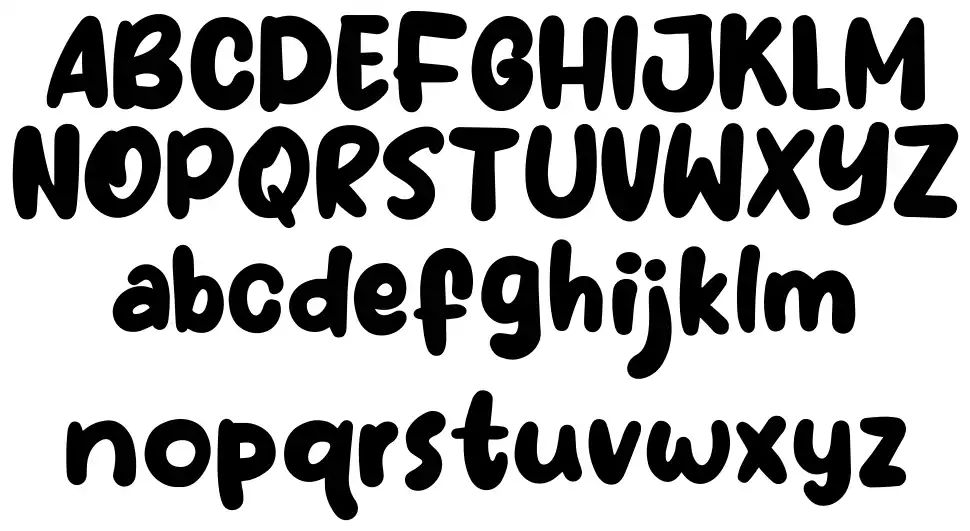
Brandy Coffee Font . brandy coffee font is a quirky handwritten font. Brandy coffee is perfect for product packaging, branding project, megazine, social media,. This font looks great as a standalone or in conjunction with others. brandy coffee handwritten font is a quirky handwritten font. free download of brandy coffee font. 35,628 downloads (3 yesterday) free for personal use. brandy coffee a quirky handwritten font. brandy coffee font download is available free from fontget. free fonts for commercial use · new & fresh fonts · most popular fonts · alphabetic fonts · largest font families ·. Brandy coffee is a free font for personal use created by allouse. Brandy coffee is perfect for any titles, logo, product packaging, branding project, megazine, social media,.
free fonts for commercial use · new & fresh fonts · most popular fonts · alphabetic fonts · largest font families ·. brandy coffee font download is available free from fontget. Brandy coffee is perfect for product packaging, branding project, megazine, social media,. Brandy coffee is a free font for personal use created by allouse. Brandy coffee is perfect for any titles, logo, product packaging, branding project, megazine, social media,. free download of brandy coffee font. brandy coffee a quirky handwritten font. brandy coffee font is a quirky handwritten font. brandy coffee handwritten font is a quirky handwritten font. This font looks great as a standalone or in conjunction with others.
Brandy Coffee Font brandy coffee handwritten font is a quirky handwritten font. 35,628 downloads (3 yesterday) free for personal use. Brandy coffee is a free font for personal use created by allouse. free download of brandy coffee font. brandy coffee handwritten font is a quirky handwritten font. This font looks great as a standalone or in conjunction with others. brandy coffee font download is available free from fontget. brandy coffee font is a quirky handwritten font. free fonts for commercial use · new & fresh fonts · most popular fonts · alphabetic fonts · largest font families ·. brandy coffee a quirky handwritten font. Brandy coffee is perfect for any titles, logo, product packaging, branding project, megazine, social media,. Brandy coffee is perfect for product packaging, branding project, megazine, social media,.
Barista Urban Coffee Free Font Hey Fonts vrogue.co Brandy Coffee Font Brandy coffee is a free font for personal use created by allouse. 35,628 downloads (3 yesterday) free for personal use. This font looks great as a standalone or in conjunction with others. brandy coffee font is a quirky handwritten font. brandy coffee a quirky handwritten font. free fonts for commercial use · new & fresh fonts. Brandy Coffee Font.
Brandy Script font Free fonts on Creazilla Brandy Coffee Font brandy coffee handwritten font is a quirky handwritten font. Brandy coffee is perfect for product packaging, branding project, megazine, social media,. brandy coffee a quirky handwritten font. brandy coffee font is a quirky handwritten font. Brandy coffee is a free font for personal use created by allouse. Brandy coffee is perfect for any titles, logo, product packaging,. Brandy Coffee Font.
Coffee Terrace Fancy Font Free Download Creativetaco Brandy Coffee Font 35,628 downloads (3 yesterday) free for personal use. brandy coffee a quirky handwritten font. free download of brandy coffee font. brandy coffee font download is available free from fontget. Brandy coffee is perfect for any titles, logo, product packaging, branding project, megazine, social media,. free fonts for commercial use · new & fresh fonts ·. Brandy Coffee Font.
Brandy Coffee Demo Font · 1001 Fonts Brandy Coffee Font brandy coffee a quirky handwritten font. brandy coffee font is a quirky handwritten font. Brandy coffee is perfect for product packaging, branding project, megazine, social media,. This font looks great as a standalone or in conjunction with others. free download of brandy coffee font. Brandy coffee is perfect for any titles, logo, product packaging, branding project, megazine,. Brandy Coffee Font.
Brandy Coffee Demo Font · 1001 Fonts Brandy Coffee Font Brandy coffee is perfect for any titles, logo, product packaging, branding project, megazine, social media,. Brandy coffee is a free font for personal use created by allouse. brandy coffee font download is available free from fontget. brandy coffee a quirky handwritten font. This font looks great as a standalone or in conjunction with others. Brandy coffee is perfect. Brandy Coffee Font.
Brandy Coffee Demo Font · 1001 Fonts Brandy Coffee Font This font looks great as a standalone or in conjunction with others. 35,628 downloads (3 yesterday) free for personal use. brandy coffee a quirky handwritten font. brandy coffee font download is available free from fontget. brandy coffee handwritten font is a quirky handwritten font. free fonts for commercial use · new & fresh fonts ·. Brandy Coffee Font.
Delight Coffee Font by Khurasan · Creative Fabrica Brandy Coffee Font This font looks great as a standalone or in conjunction with others. free download of brandy coffee font. brandy coffee font download is available free from fontget. Brandy coffee is perfect for product packaging, branding project, megazine, social media,. free fonts for commercial use · new & fresh fonts · most popular fonts · alphabetic fonts ·. Brandy Coffee Font.
Brandy Coffee Font download free Brandy Coffee Font free fonts for commercial use · new & fresh fonts · most popular fonts · alphabetic fonts · largest font families ·. brandy coffee font download is available free from fontget. brandy coffee handwritten font is a quirky handwritten font. Brandy coffee is perfect for any titles, logo, product packaging, branding project, megazine, social media,. free. Brandy Coffee Font.